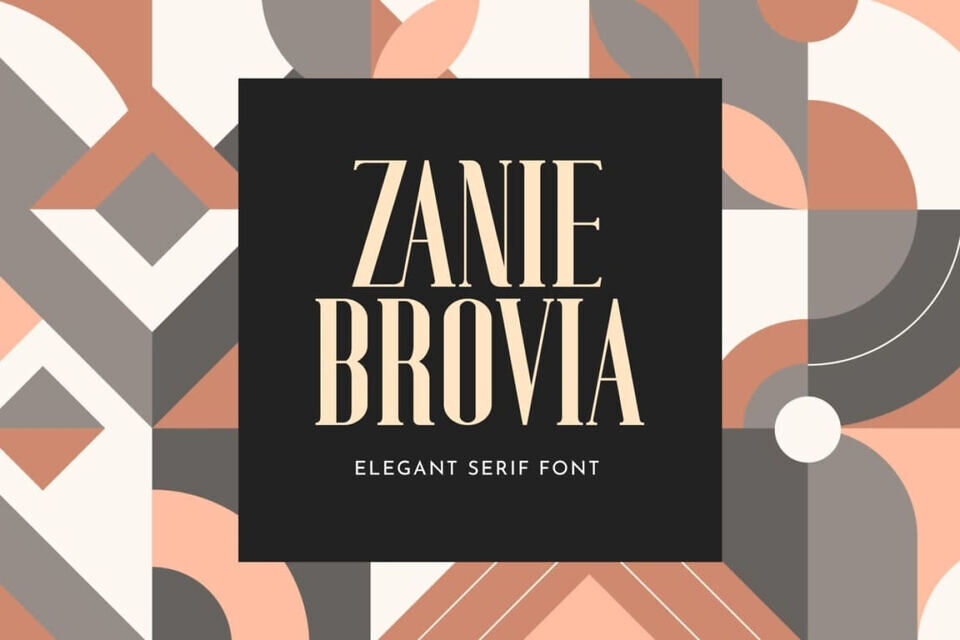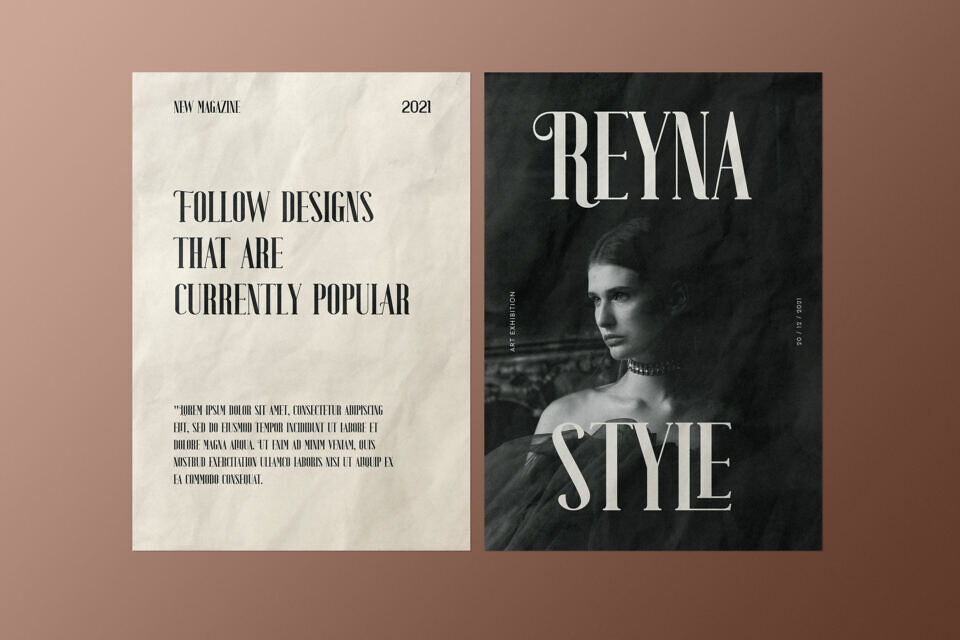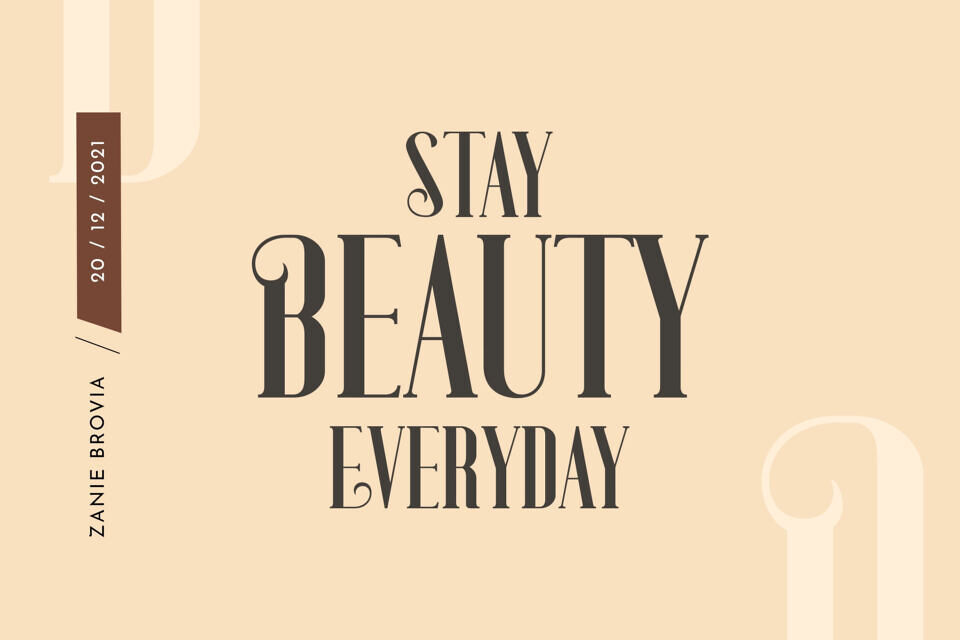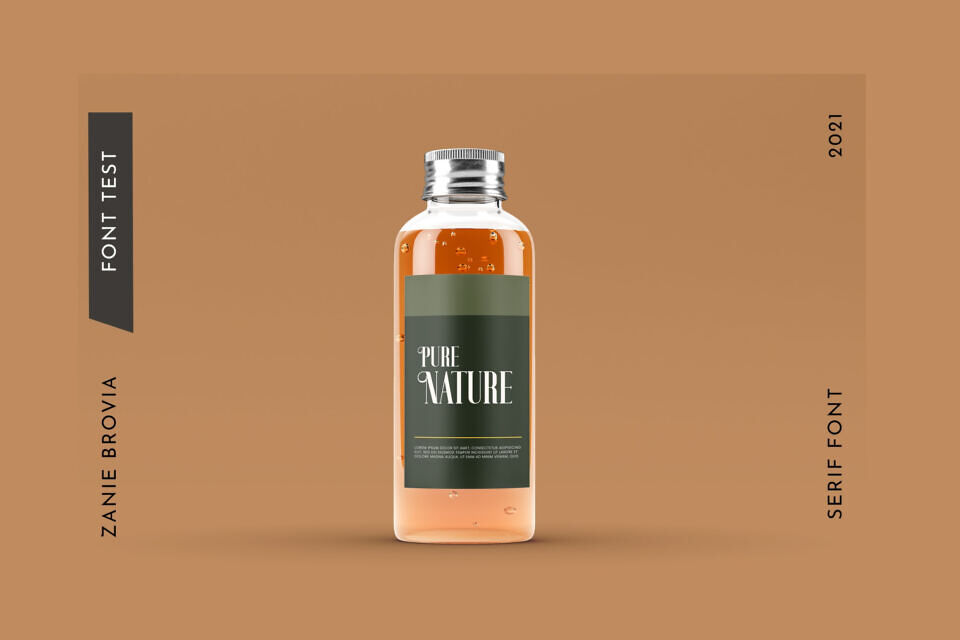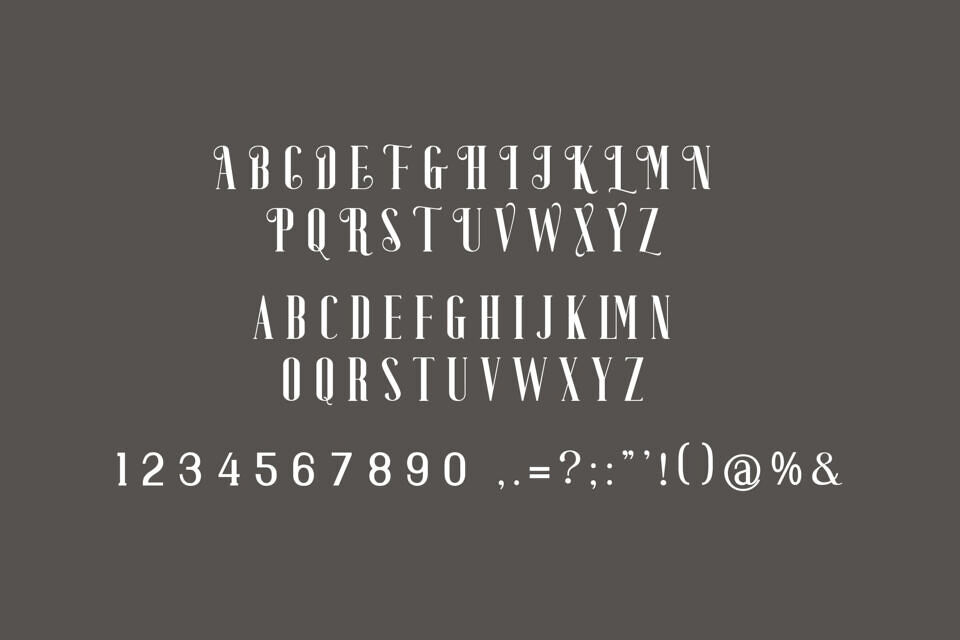
Zanie Brovia Font
Zanie Brovia is a versatile serif font with a vintage touch, ideal for conveying messages in various designs. It works well for displays, labels, clothing, posters, and more, and suits both casual and semi-formal text, making it perfect for logos, album covers, and movie titles.